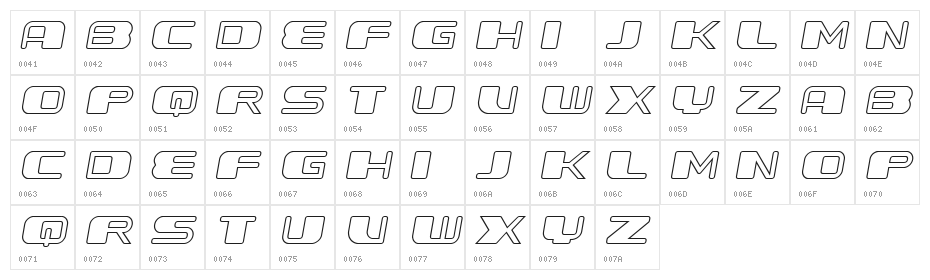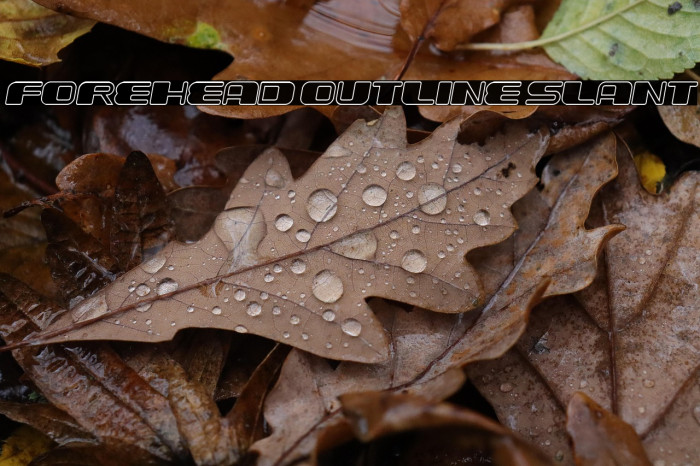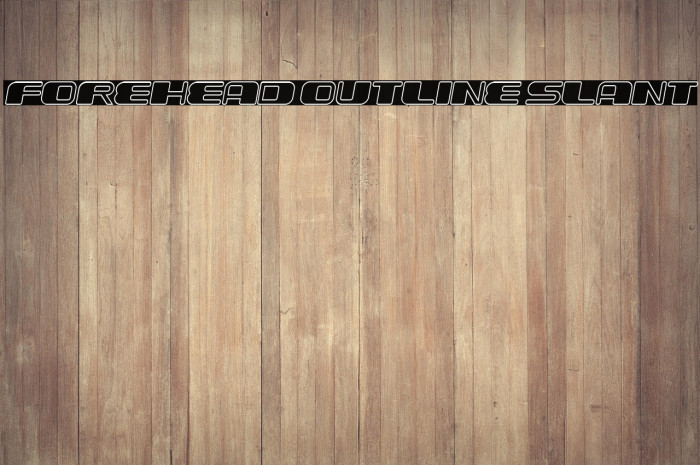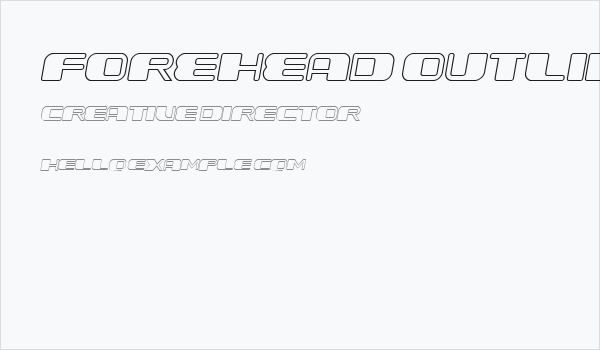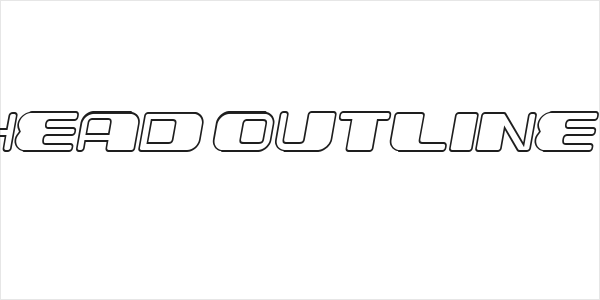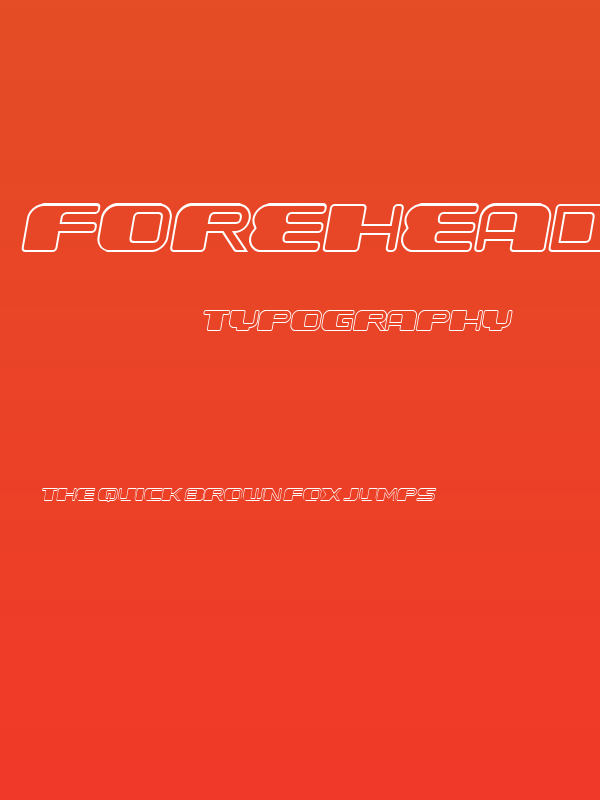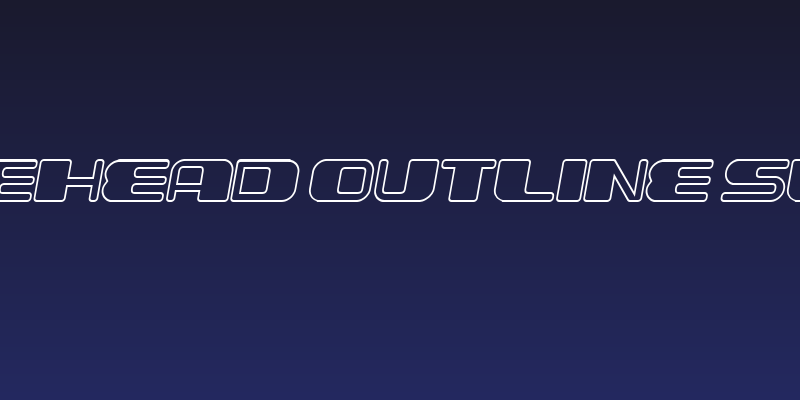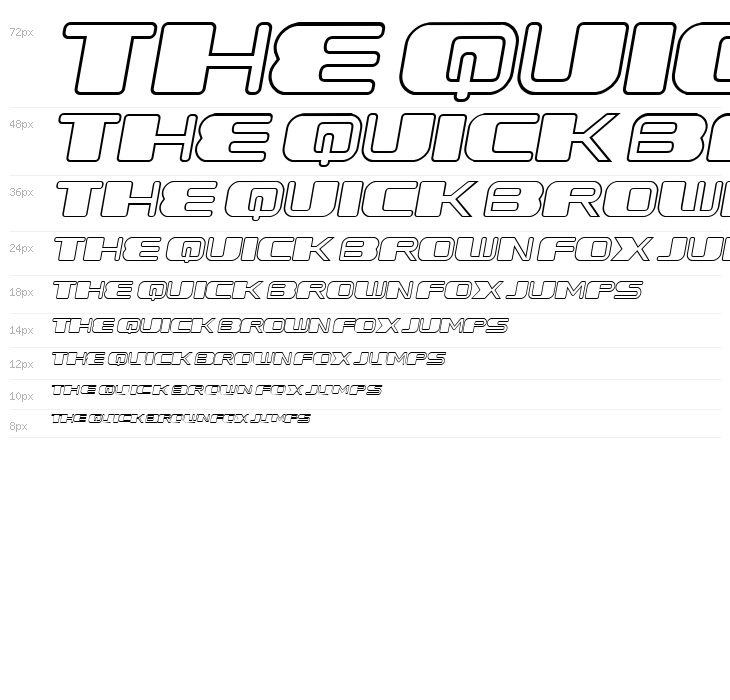
Forehead Outline Slant Font
Forehead Outline Slant Description
This font features a unique outline style with a slanted, futuristic appearance. The characters are bold and geometric, with a consistent stroke width that creates a uniform look across all letters. The outline design gives it a hollow appearance, making it ideal for modern and tech-oriented projects. The slant adds a dynamic feel, suggesting movement and speed. The uppercase letters are prominent, with sharp angles and clean lines, while the lowercase letters maintain the same structural integrity. The numbers and special characters follow the same design principles, ensuring a cohesive look throughout.
| Proposed Projects | Ideal for tech branding, futuristic posters, video game titles, and digital interfaces. |